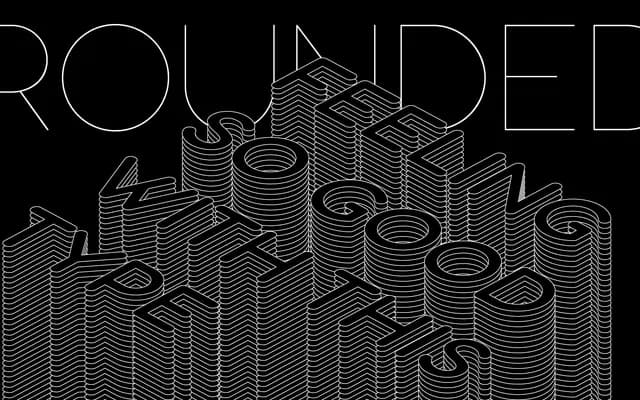
Aristotelica Pro
Zetafonts · Cosimo Lorenzo Pancini, Francesco Canovaro, Andrea Tartarelli · 2020
A large-family rounded geometric sans by Zetafonts, covering display and text optical sizes, condensed cuts, an icons set and variable fonts across nine weights.
Built on the philosophy of circular simplicity and named after Aristotle, the typeface spans 43 static styles plus two variable fonts across display, text and condensed subfamilies. A companion icons subfamily uses matching monoline weights to pair seamlessly with the text. Language coverage extends to over 200 languages across Latin, Greek, Cyrillic and Arabic scripts, with over 1,100 glyphs and OpenType features including small caps, old-style figures and stylistic alternates.
A rounded geometric sans built on circular forms, with strict geometric construction softened by consistent rounding across all strokes, placing it firmly in the geometric sans tradition.